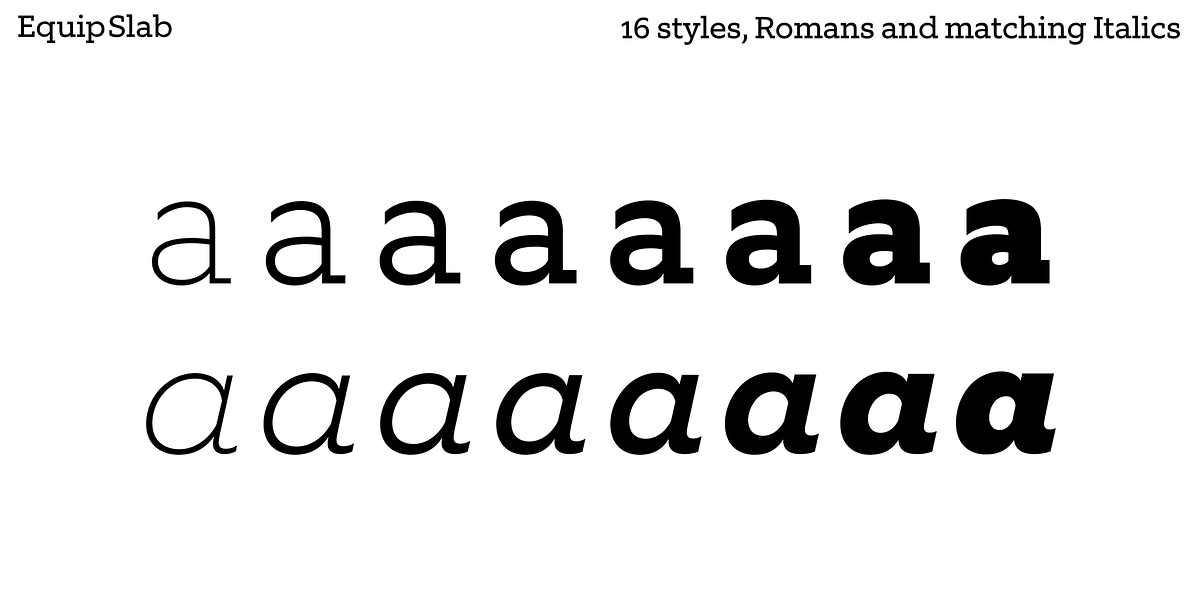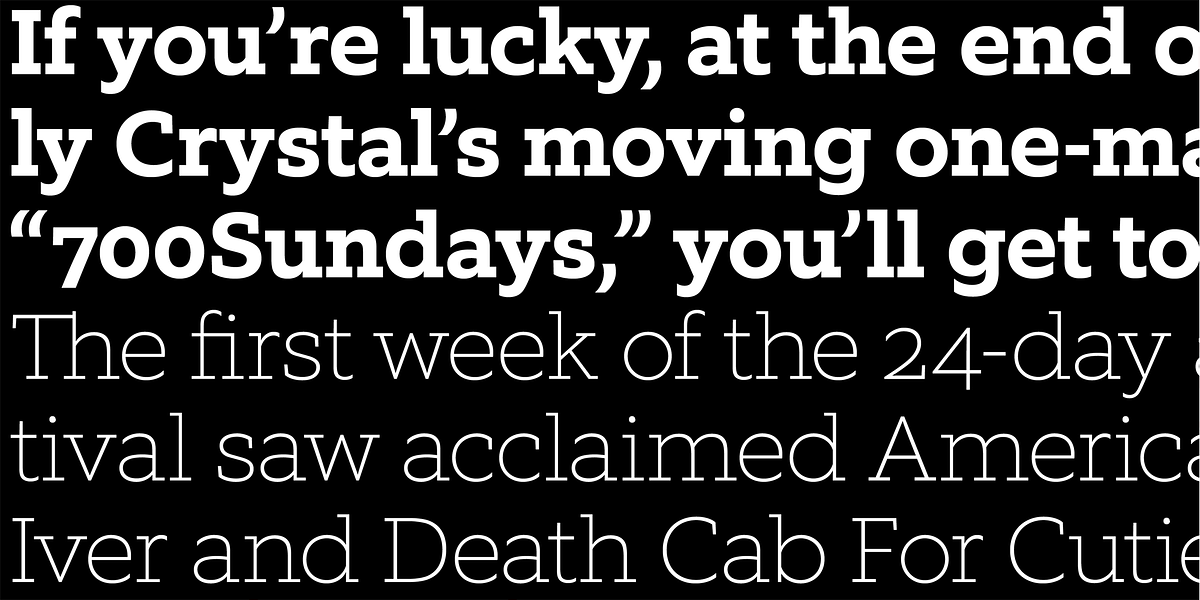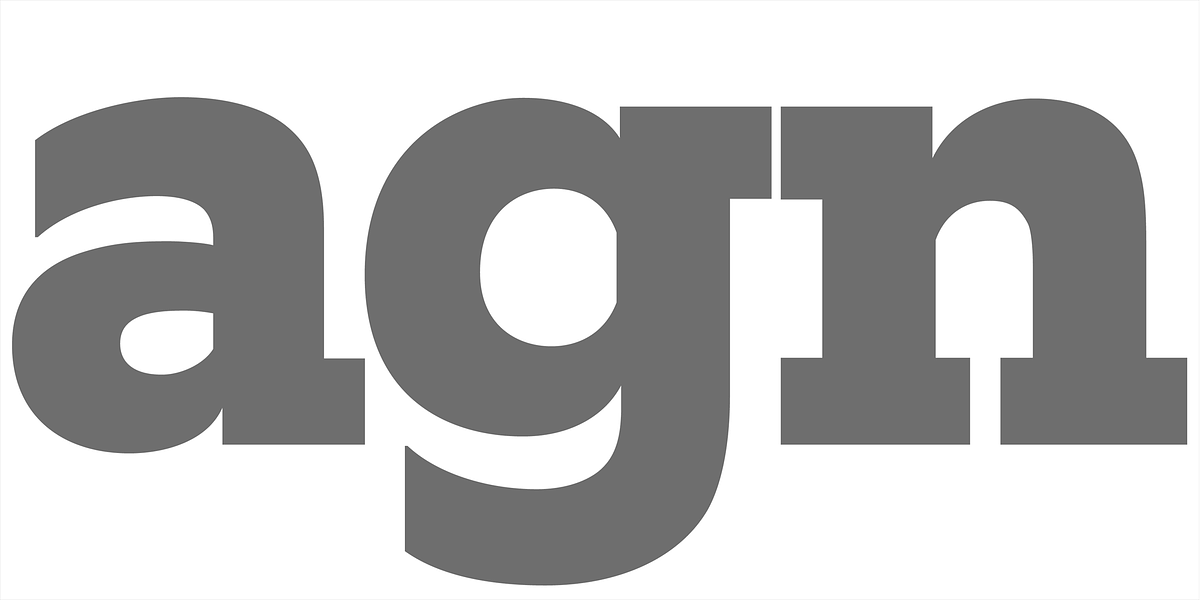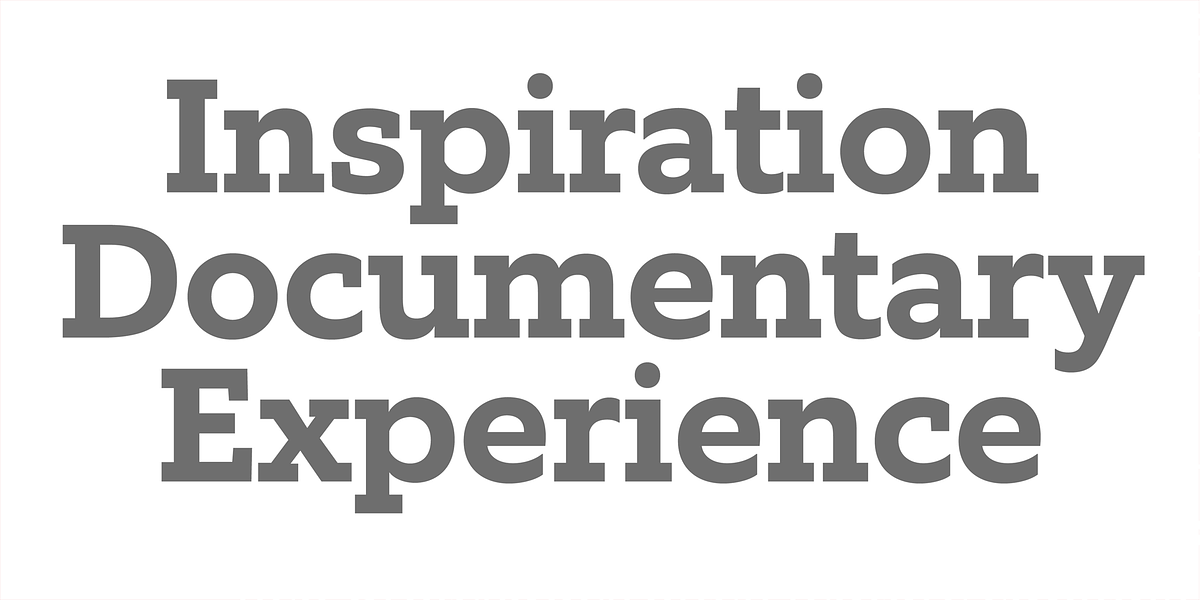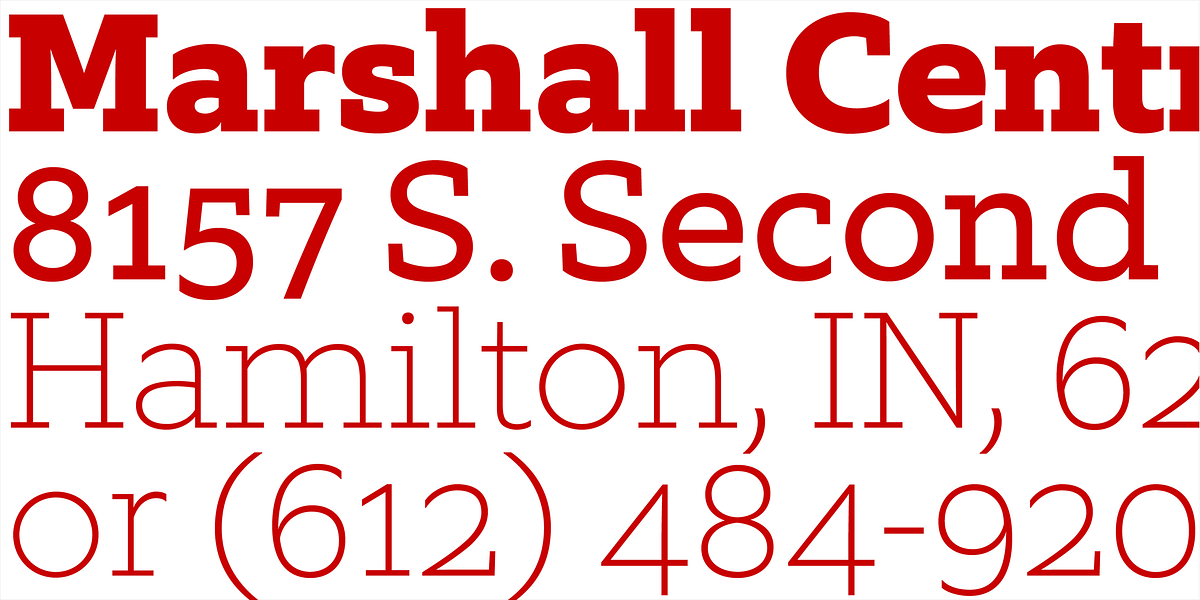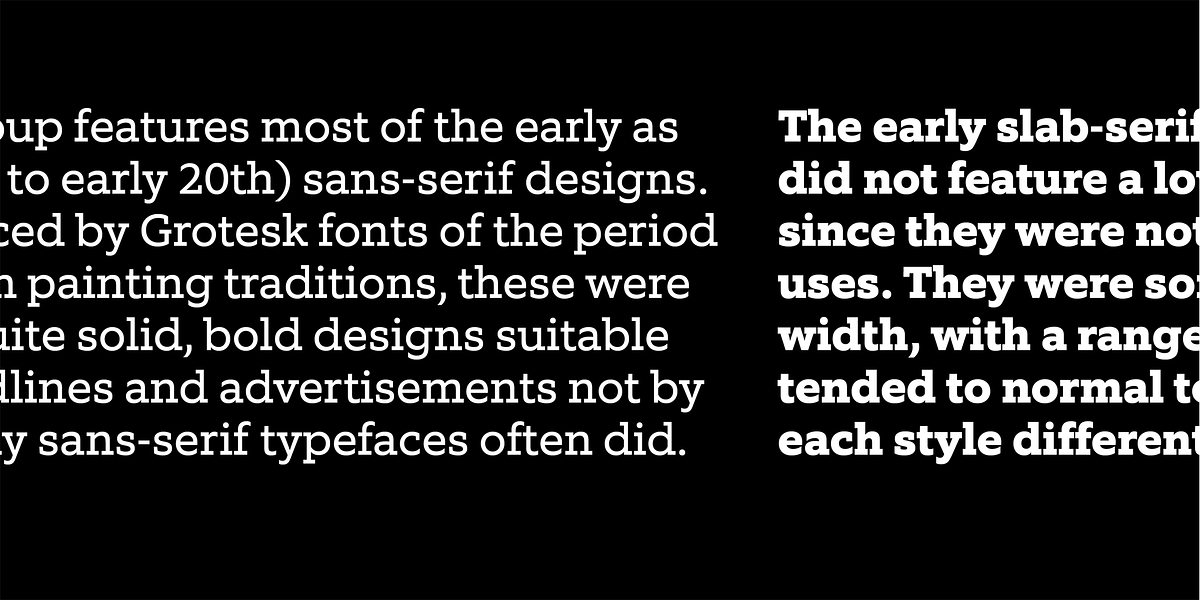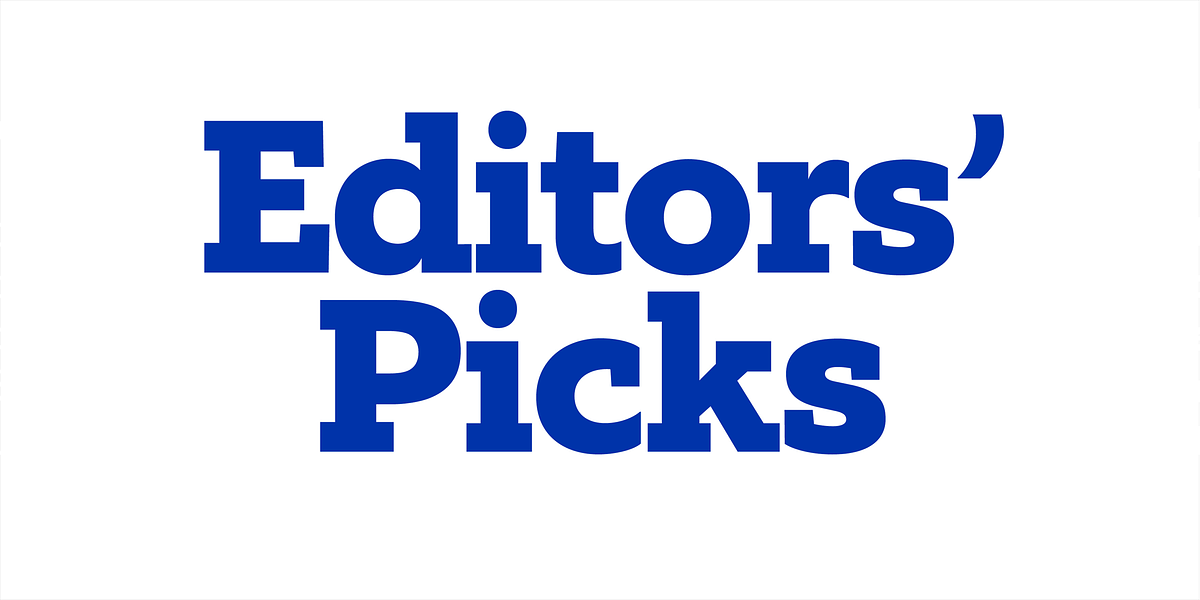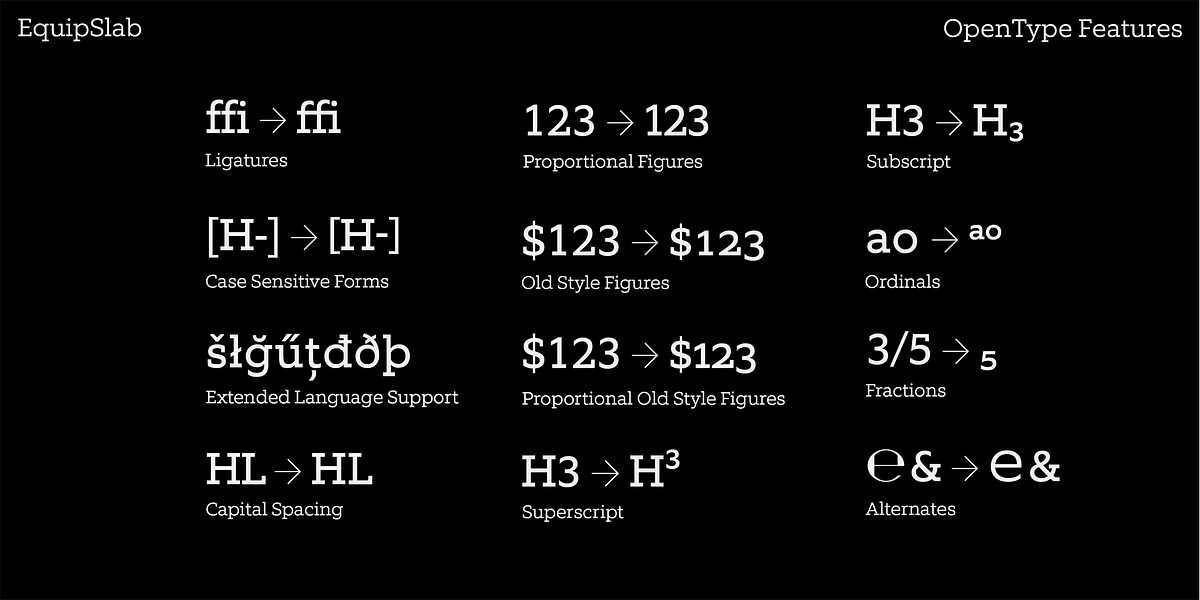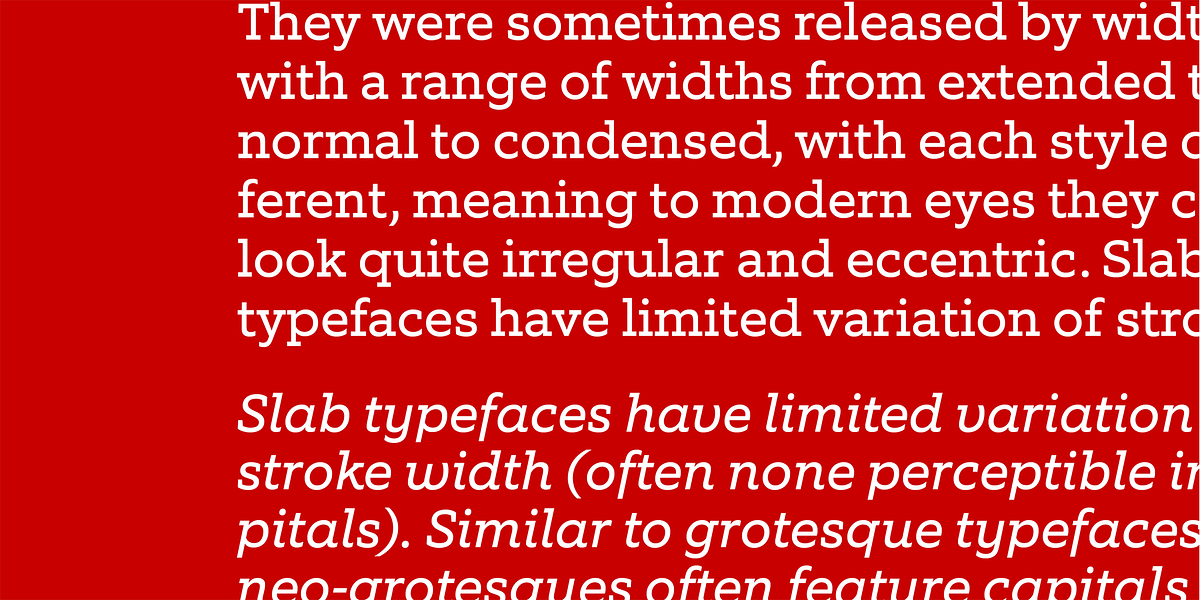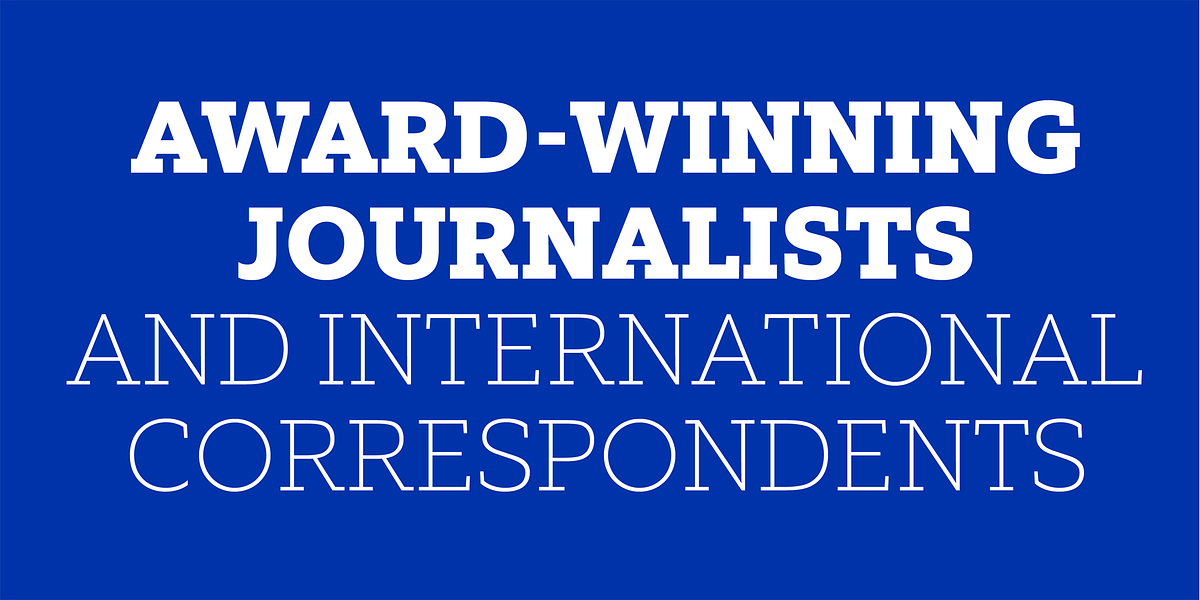
Equip Slab
Equip Slab is a geometric slab serif typeface designed for impactful typography. It features a strong and direct aesthetic, making it suitable for headlines, branding, and other applications where clarity and authority are desired.